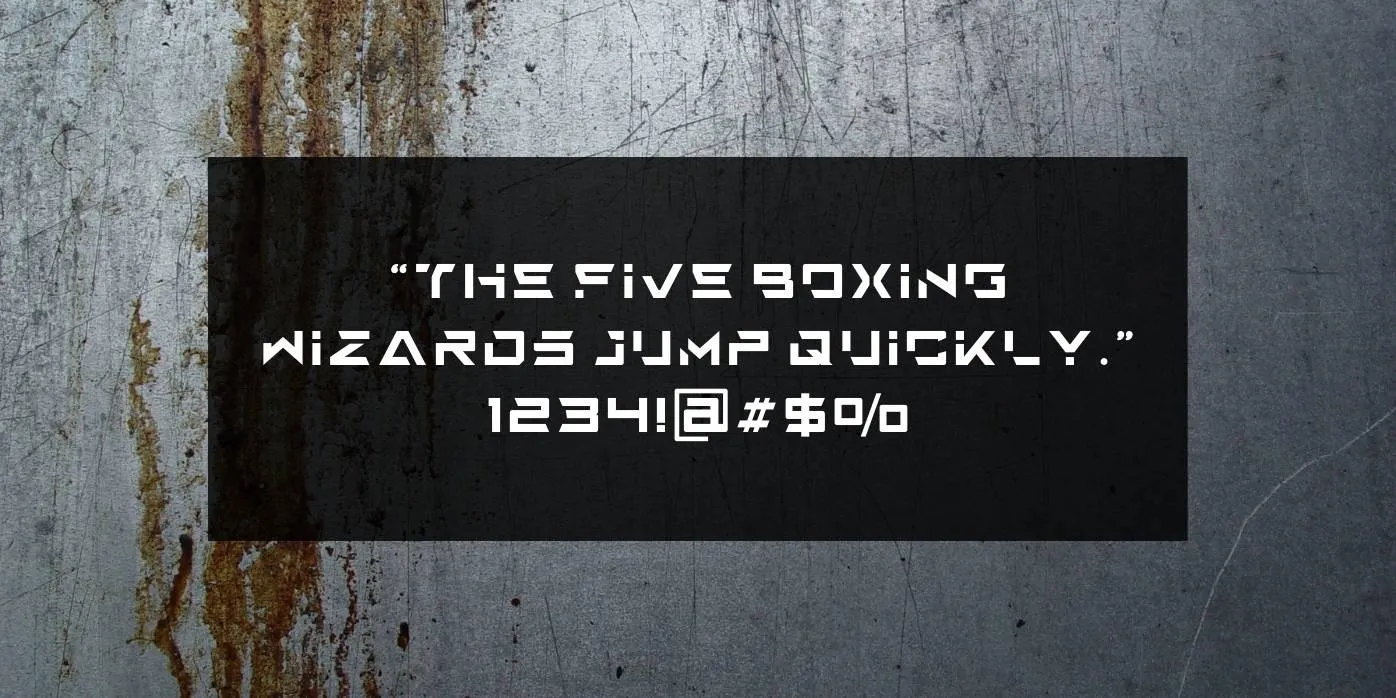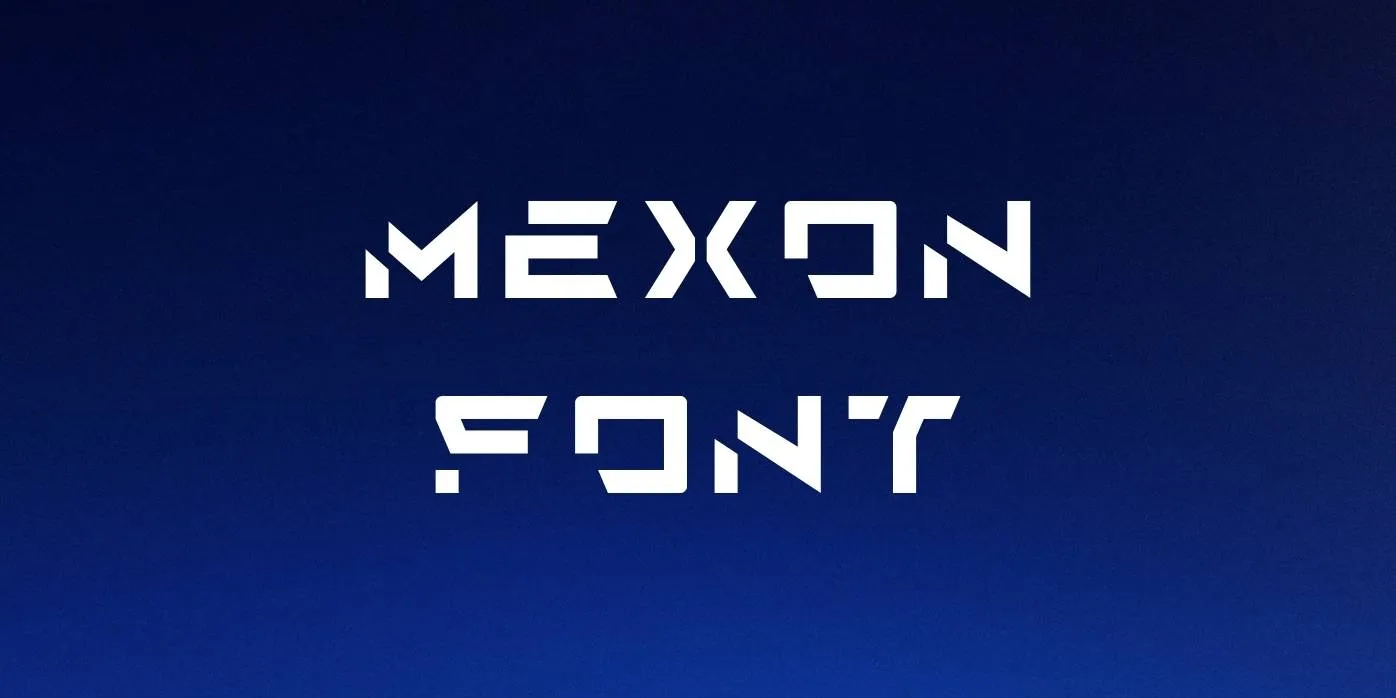
Mexon Font
Mexon Font is a sans serif typeface created by Swiss designer Max Miedinger in 1957. The font takes its name from the word “Mexican”, which is derived from the Latin name for Mexico. Mexon Typeface is characterized by its clean, modern lines and has been used extensively in both print and digital media. The font’s popularity began to grow in the late 1970s and early 1980s when it was used extensively in advertising and graphic design.
Today, Mexon Typeface remains a popular choice for both designers and typographers. While this font may be best known for its clean lines and simple shapes, the font also has a unique history.  You will have to download this typeface. Its generator tool is perfect for many designs.